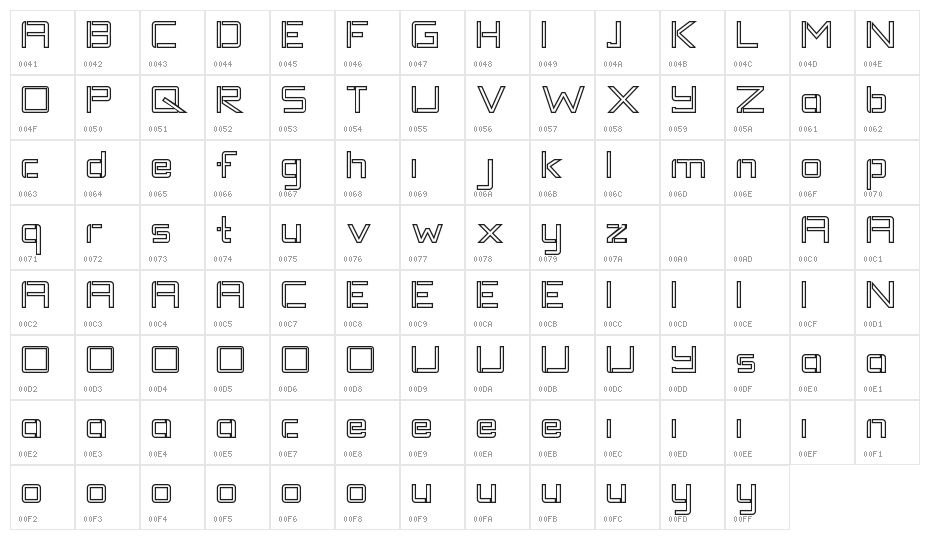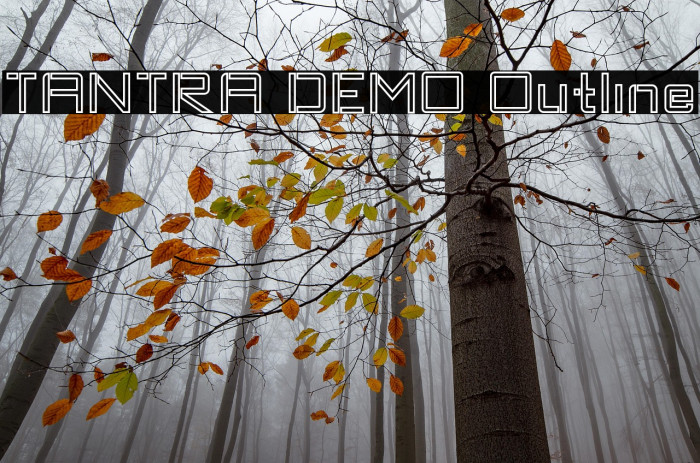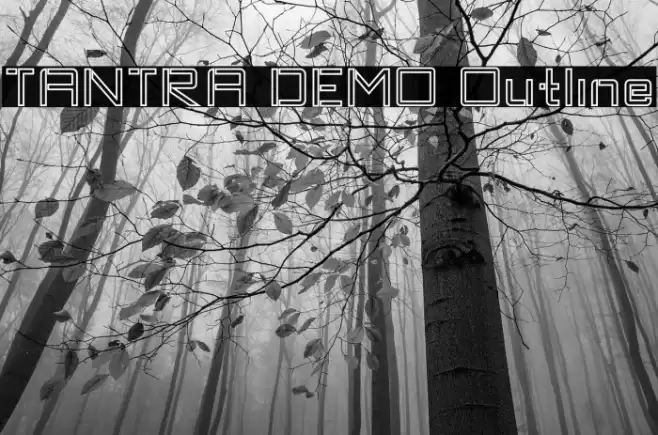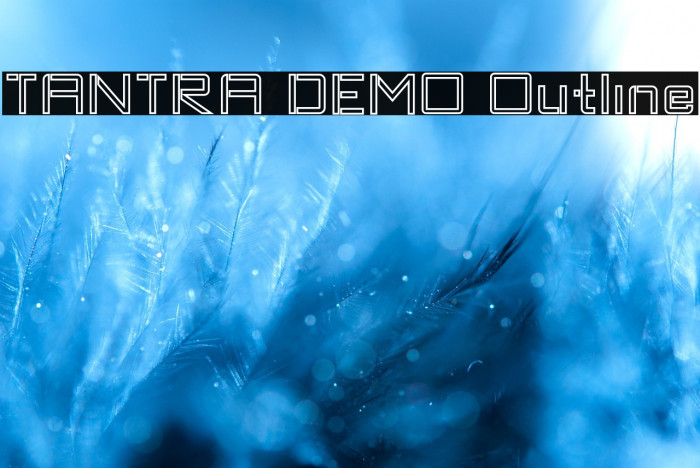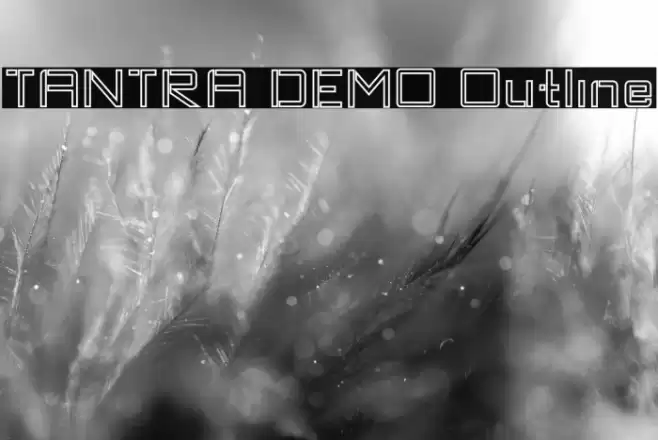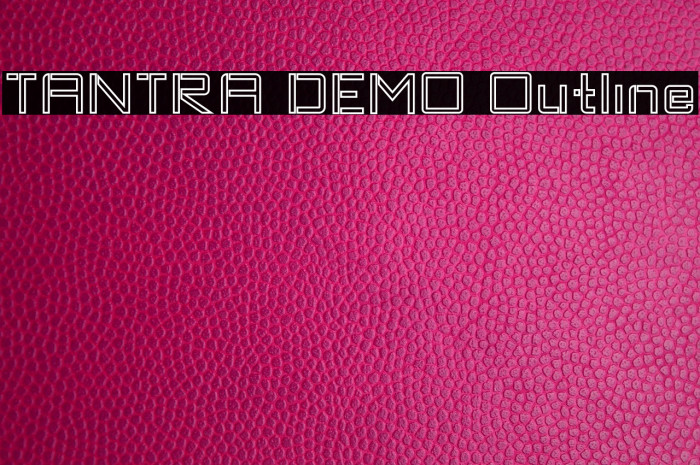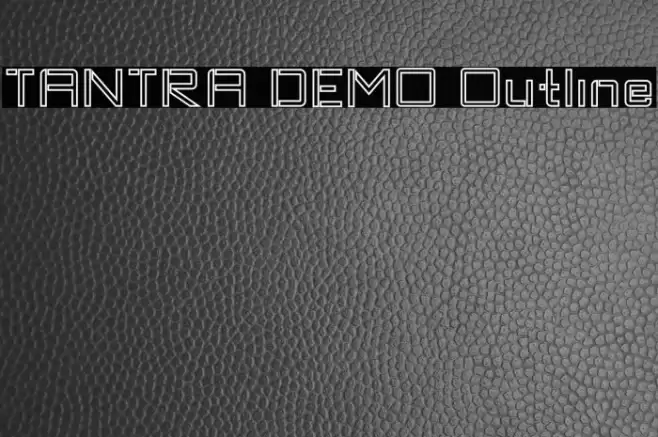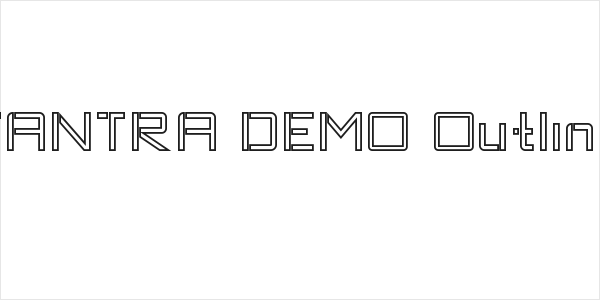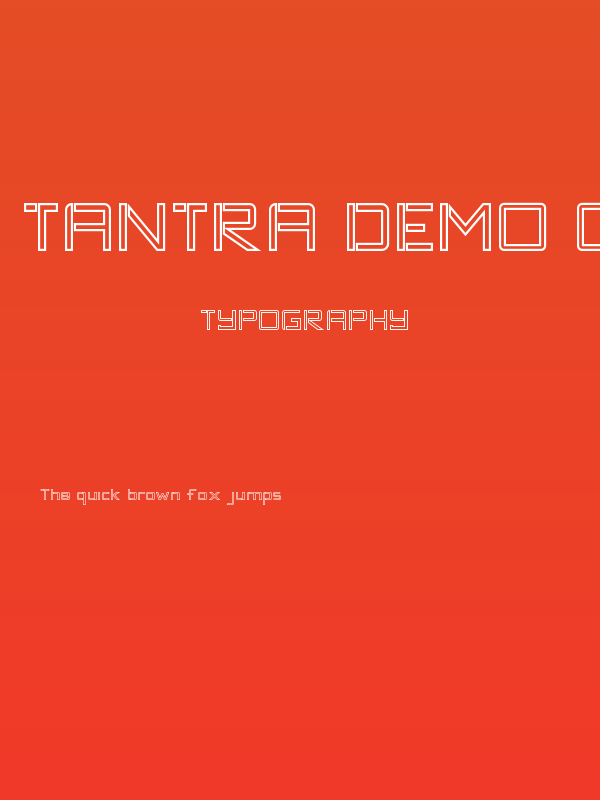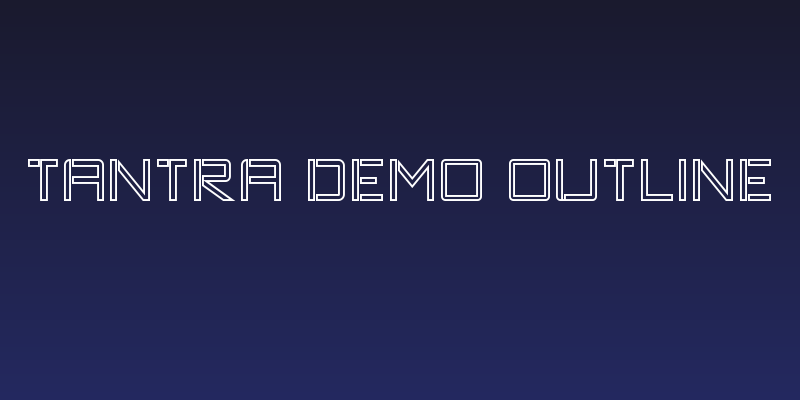
TANTRA DEMO Outline Font
TANTRA DEMO Outline Description
This font features a modern, geometric design with an outline style that gives it a futuristic and technical appearance. The characters are constructed with clean, straight lines and sharp angles, creating a sense of precision and clarity. The uppercase and lowercase letters maintain a consistent height, while the numerals and special characters blend seamlessly with the overall aesthetic. The outline effect adds a unique dimension, making it suitable for digital and print media where a contemporary and edgy look is desired.
| Proposed Projects | Ideal for technology branding, digital interfaces, futuristic posters, and modern graphic design projects. |